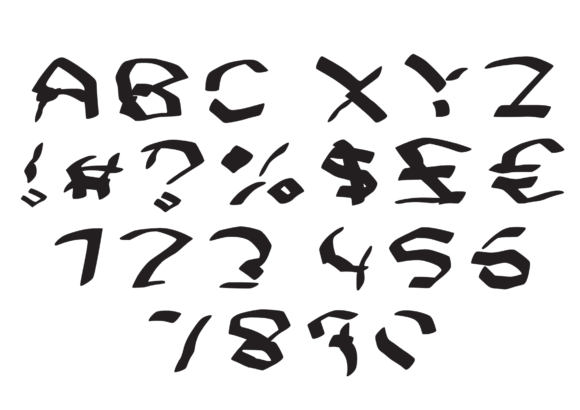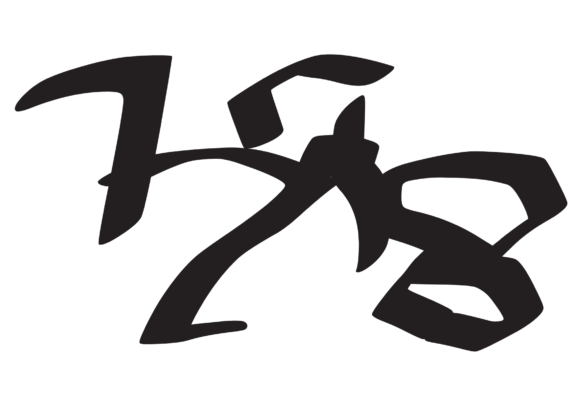
Introduction to Dirty Graffiti Font
Dirty Graffiti is a urban styled display font based on street art.
Add a playful touch to your designs with this unique and cool looking font .
Key Features of Dirty Graffiti Font
Why Choose Dirty Graffiti Font?
Dirty Graffiti Font offers exceptional quality and versatility, making it a valuable addition to your design toolkit. Whether you’re creating for personal projects or commercial use, Dirty Graffiti Font delivers professional results.